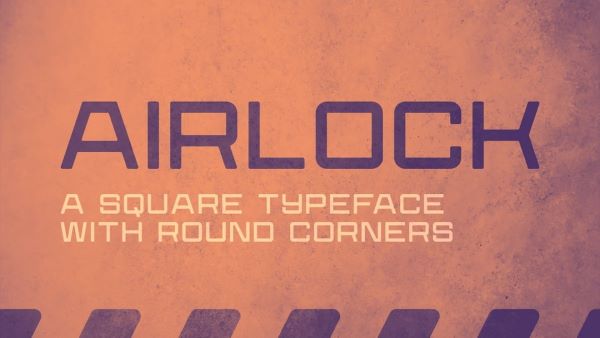
Airlock Font
Airlock by Edward Batkins is a free square display typeface inspired by the visual culture of the space race — that extraordinary era when typography had to communicate both the precision of engineering and the audacity of human ambition simultaneously. Its squared, geometric letterforms carry an inherent structural confidence that reads as purposeful and forward-looking, whether applied to tech branding, editorial headers, poster design, or any project that wants to project a sense of calculated boldness. Compact in its proportions yet expansive in its presence, it is a typeface that earns its place at headline scale. Free for personal and commercial use.